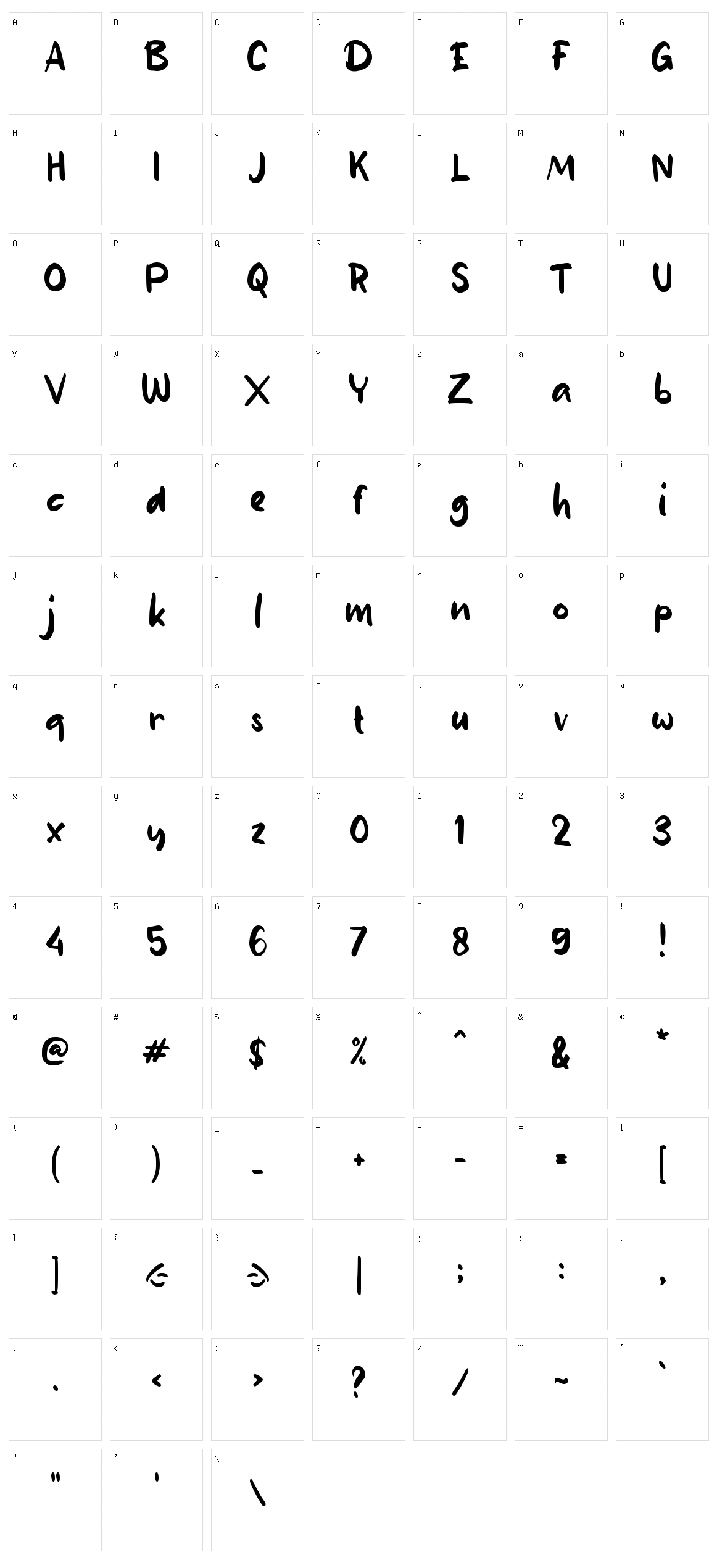
The free font b Blush Smile is carefully designed by wep, showcasing a thoughtful balance of creativity and usability and falls under the Script font style. When you download the ZIP file, it contains only 14.21 KB of font files, making it lightweight and quick to download. Please review the license details below to understand permitted usage and distribution rights. If license information is not available, we recommend using this font for personal projects only or contacting the author directly for commercial usage permissions.